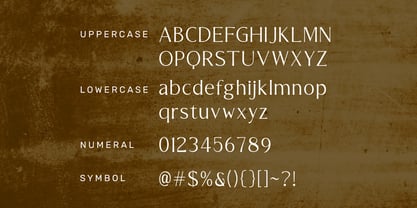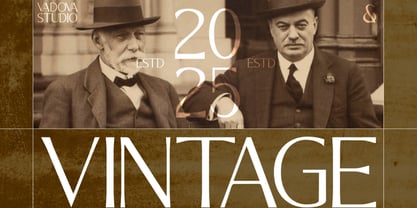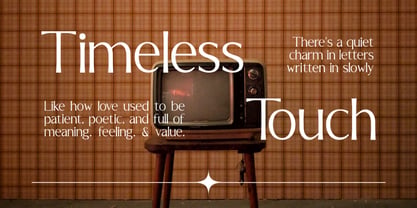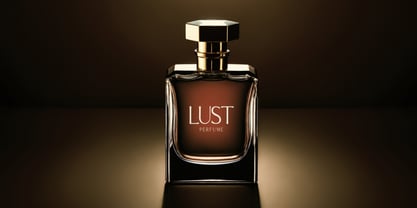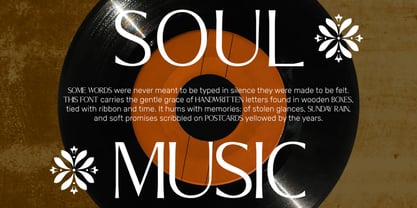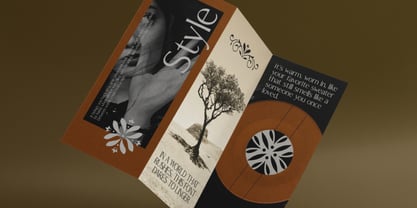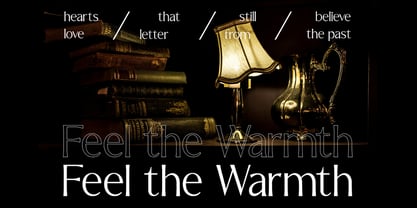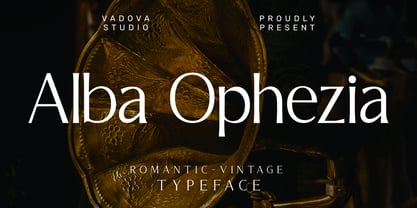
Alba Ophezia
Alba Ophezia is an elegant romantic serif typeface with classic proportions and graceful details that evoke vintage charm and poetic sophistication. Designed with refined contrast, subtle terminals, and an airy rhythm, it includes a complete set of uppercase and lowercase letters, numerals, punctuation, and basic symbols. Alba Ophezia is perfect for designers and creatives seeking a serif font with emotional warmth and classic elegance. Its refined letterforms enhance wedding stationery, luxury product branding, fashion lookbooks, high‑end editorial layouts, feminine packaging, poetic quotes, and elegant web headers.